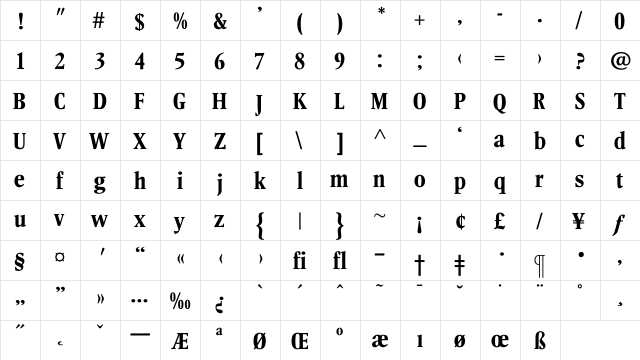
LeightonBoldCond Regular Font Preview
LeightonBoldCond Regular
Design Context for LeightonBoldCond Typeface
LeightonBoldCond offers clean, dependable letterforms without strong stylistic allegiance, making it a practical choice for designers who need flexibility. Its bold stroke weight gives it real presence on the page. Its narrow stance lets it pack a punch even in space-constrained designs.